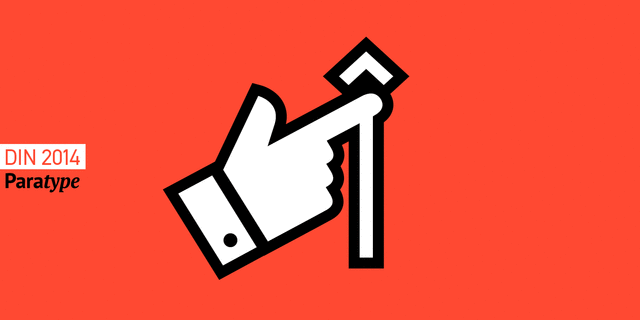
About DIN 2014 is a contemporary version of a well-known DIN typeface. The Regular performs well in long text settings, while Light and Bold faces are extremely legible at large sizes. Type family spans 18 faces: 6 Upright with the matching Italics of normal width and 6 Narrow ones. The typeface was designed by Vasily Biryukov and released by Paratype in 2015.
Features of font family DIN 2014The hit of the decade:
Hit of 1930s Hit of 2000s Hit of 2010s Close to historical original:
Associations for font family DIN 2014Typeface personality and character:
accurate, flat, rectangular, stable, technogenic, static, urban, laconic, thin, cold, minimalistic, globalized, globalistic, glass, sharp, fragile, wire, clever, simple, urbanistic, convincing, solid, serious, reliable, self-assured, strong, industrial, authoritative, automatic, steel, robust, strict, business, modern, monotone, logical, pragmatic, practical, artificial, machine, engineering, motivating, railway, schematic, iron, tough, ambitious, architectural, workman, severe, cutting, important, military, heavy, compressed, slim, tall, close-fitting, loud, responsible